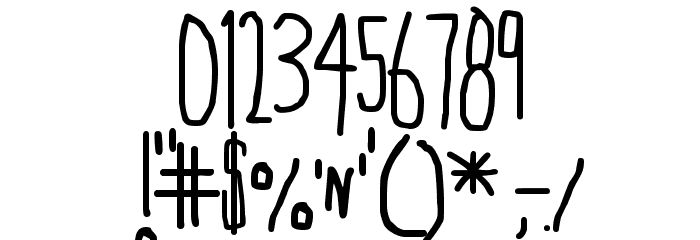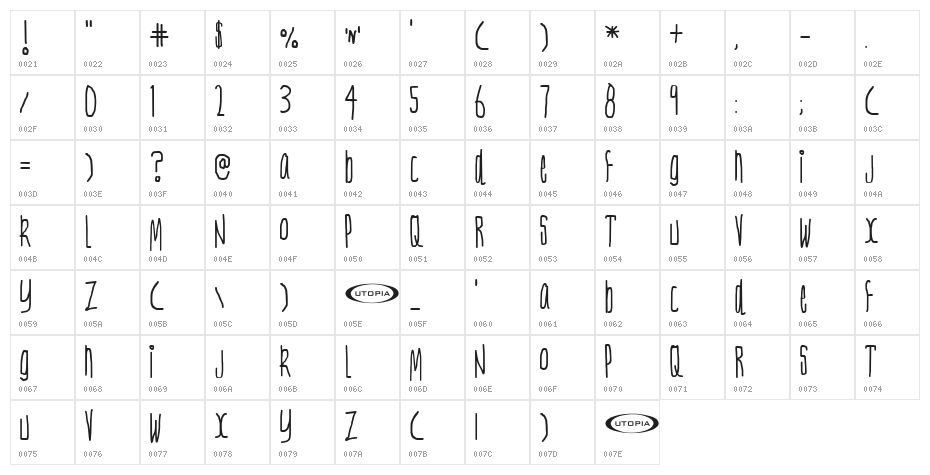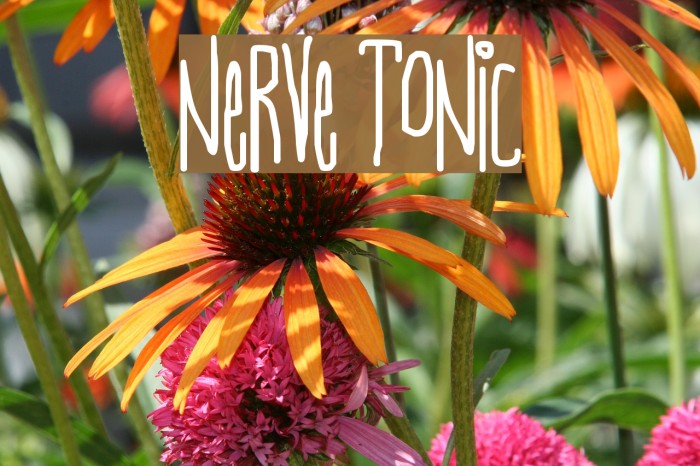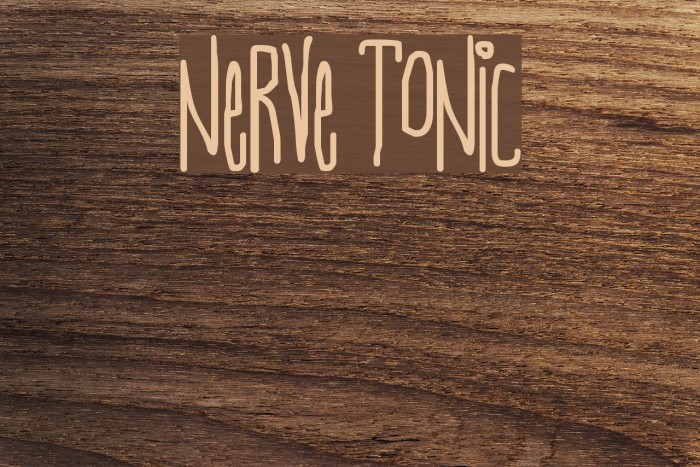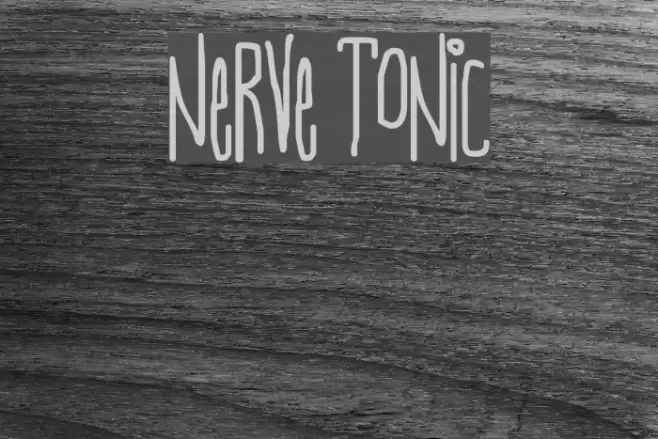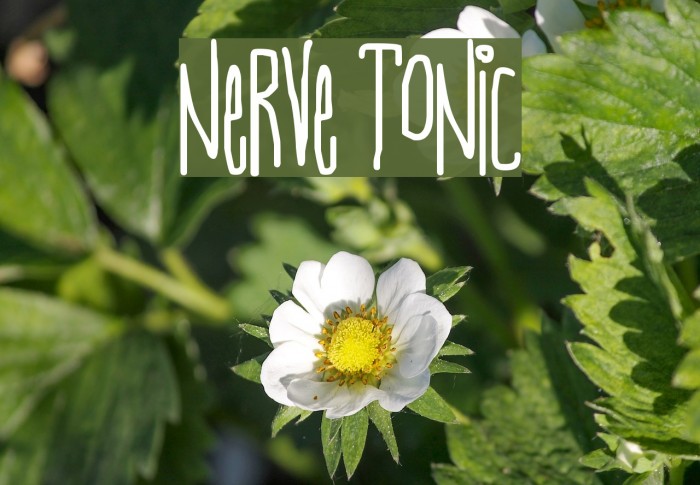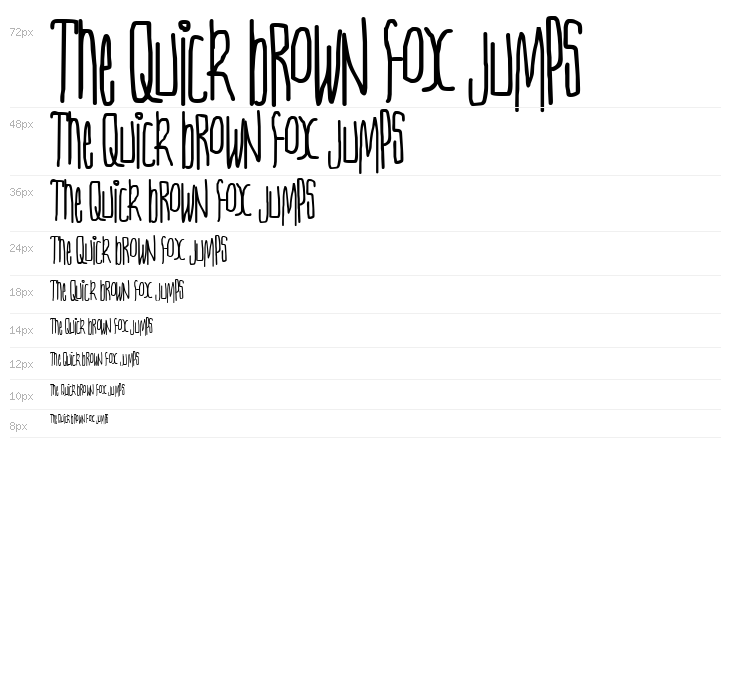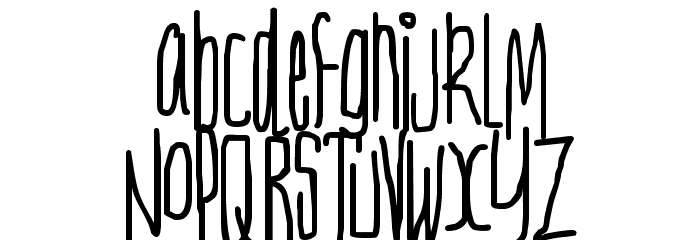
Nerve Tonic Font
Nerve Tonic Description
This font features a unique, elongated design with a hand-drawn appearance. The characters are tall and narrow, giving it a distinctive and artistic look. The strokes are consistent in width, creating a uniform appearance across all characters. The uppercase and lowercase letters share similar heights, enhancing the font's cohesive style. The numbers and special characters maintain the same elongated and narrow characteristics, ensuring a harmonious overall design. This font's playful yet structured style makes it suitable for creative projects.
Overall StyleArtistic
Proposed ProjectsIdeal for creative projects such as posters, album covers, and artistic branding materials.